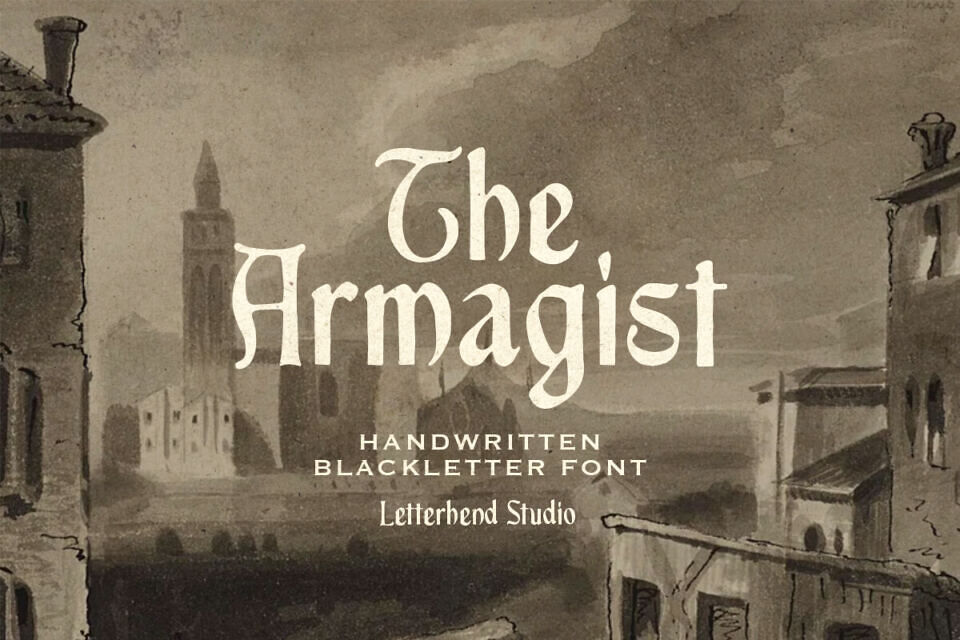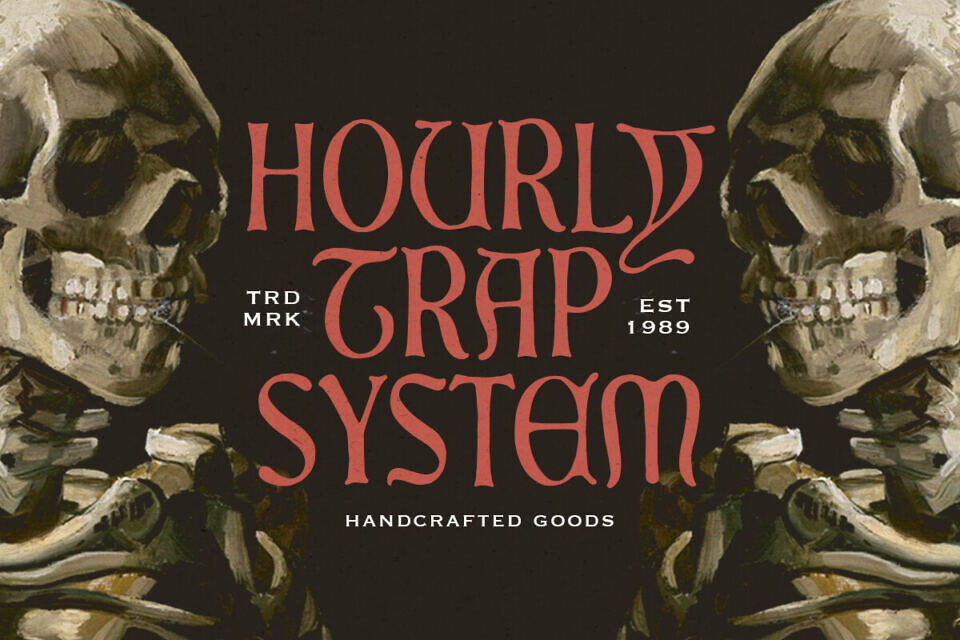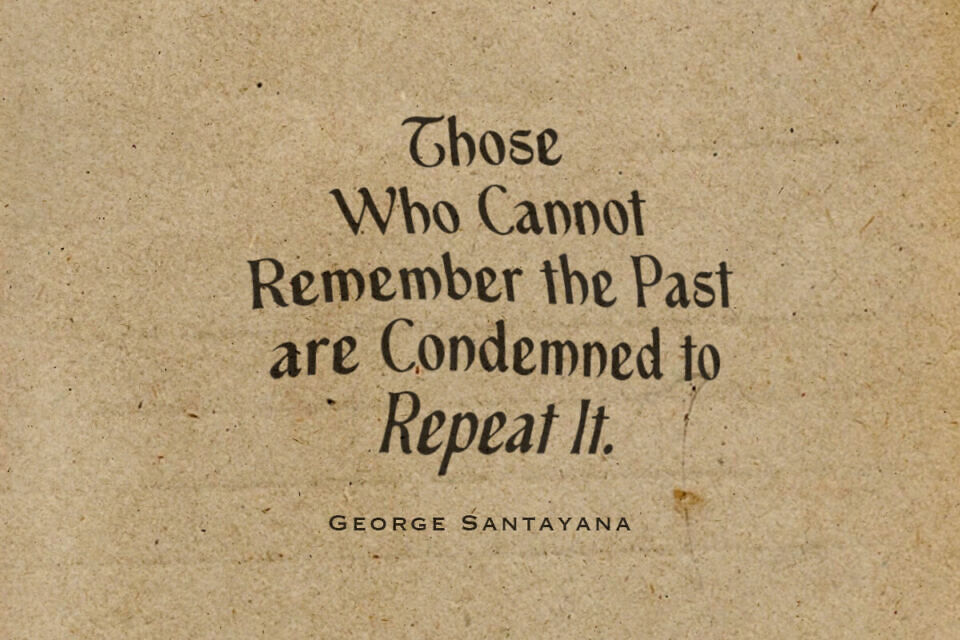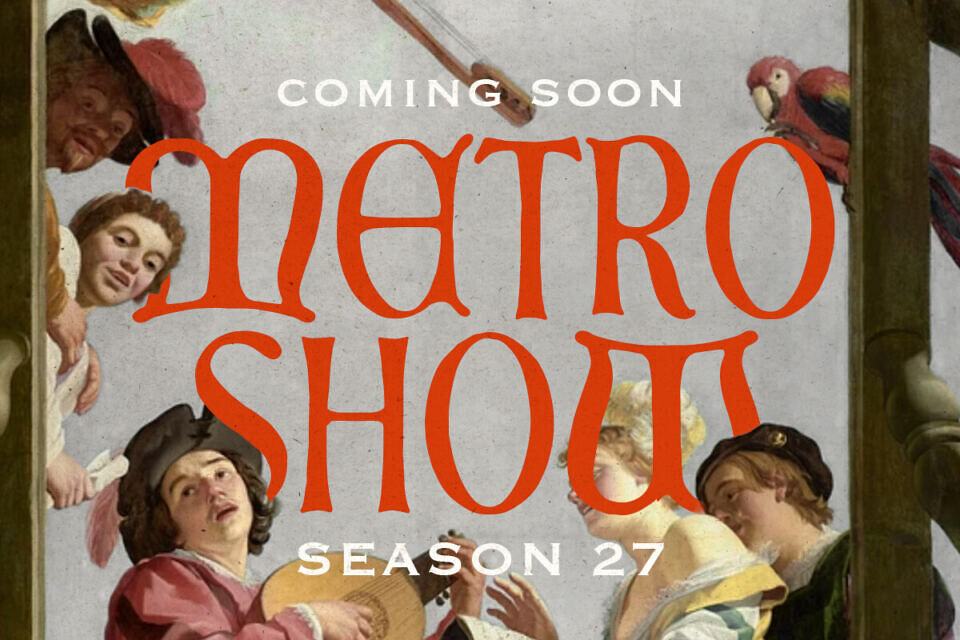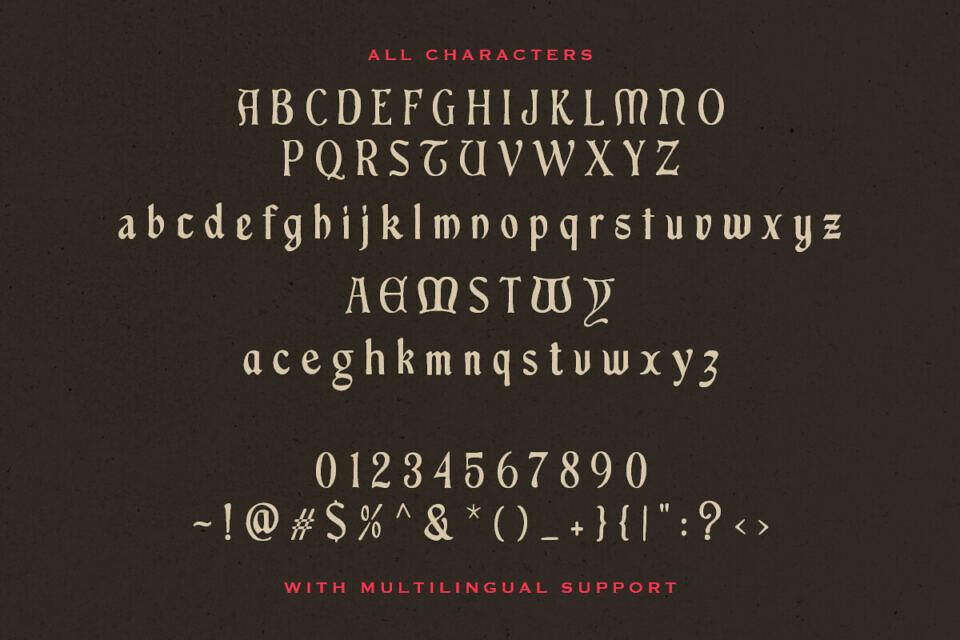
Immerse your designs in medieval elegance with The Armagist, a handcrafted blackletter font that brings the spirit of ancient manuscripts to life. Its bold, textured strokes and subtle imperfections give a sense of authenticity, perfect for creating logos, posters, book covers, or branding with a historical or fantasy theme
This font pairs beautifully with vintage aesthetics, making it a versatile choice for designs that need a touch of old-world charm.